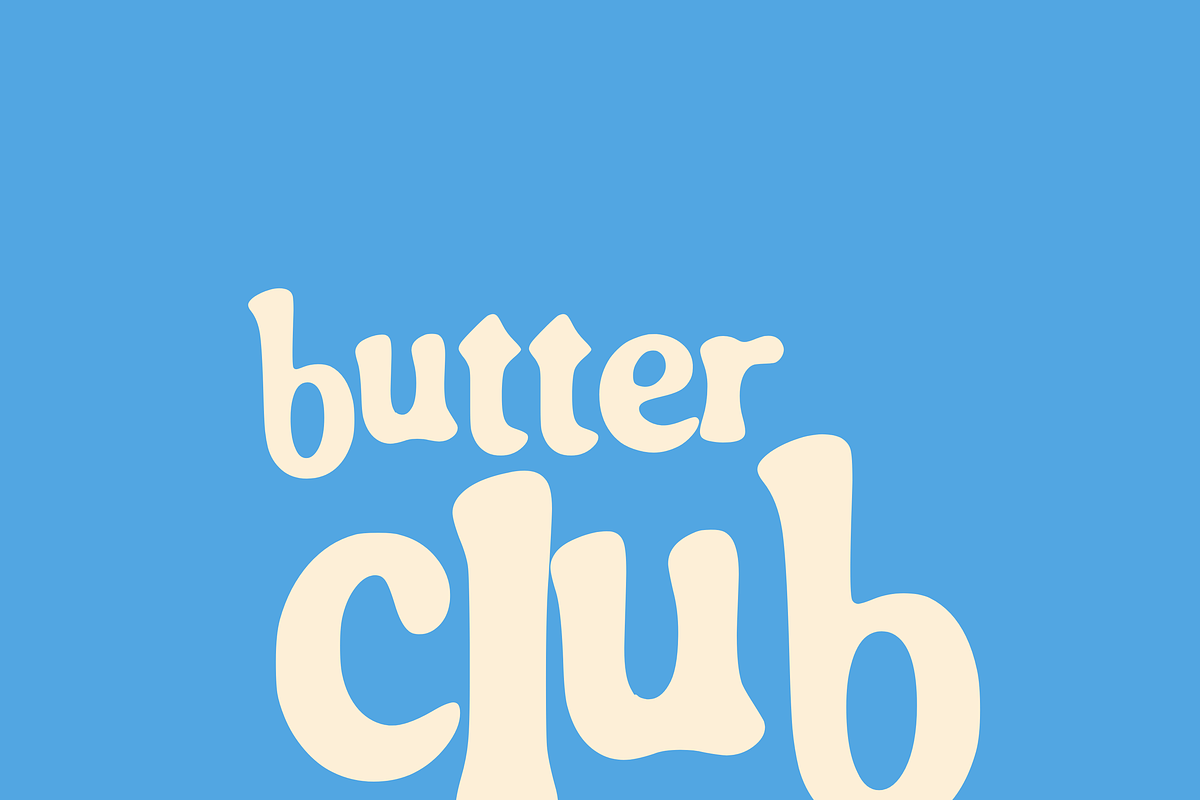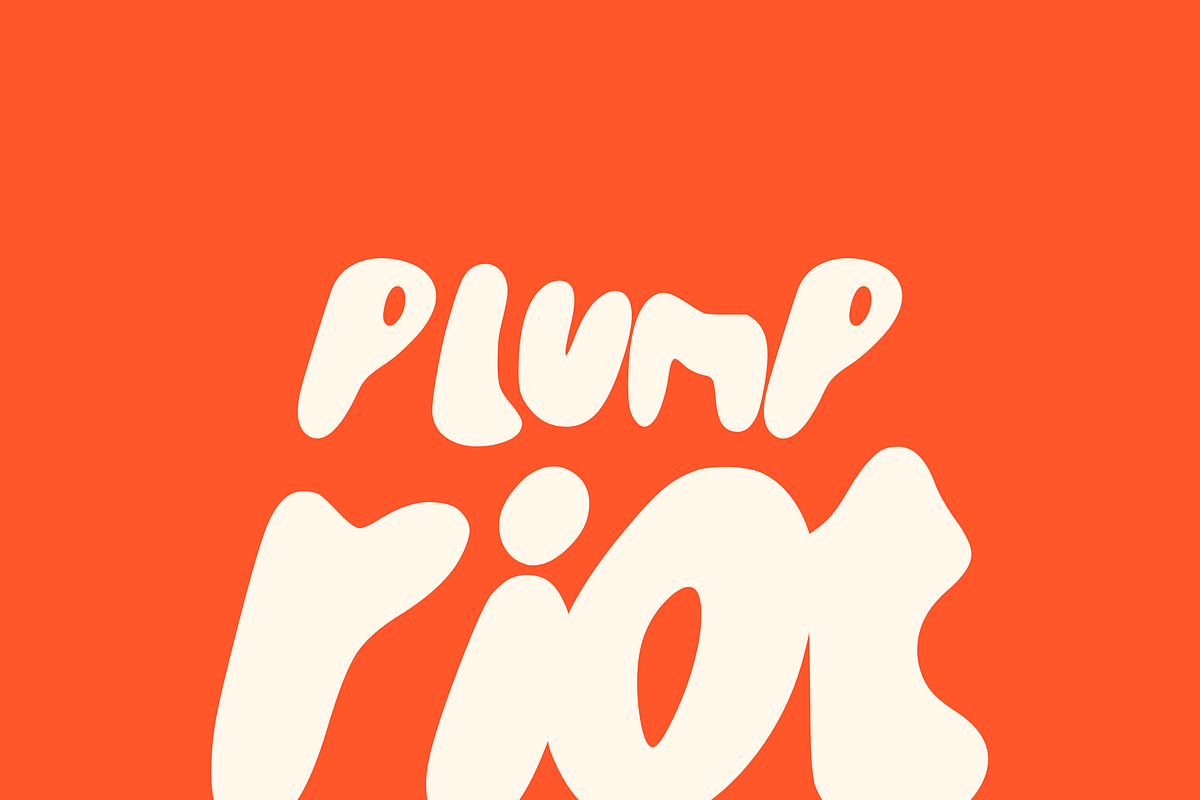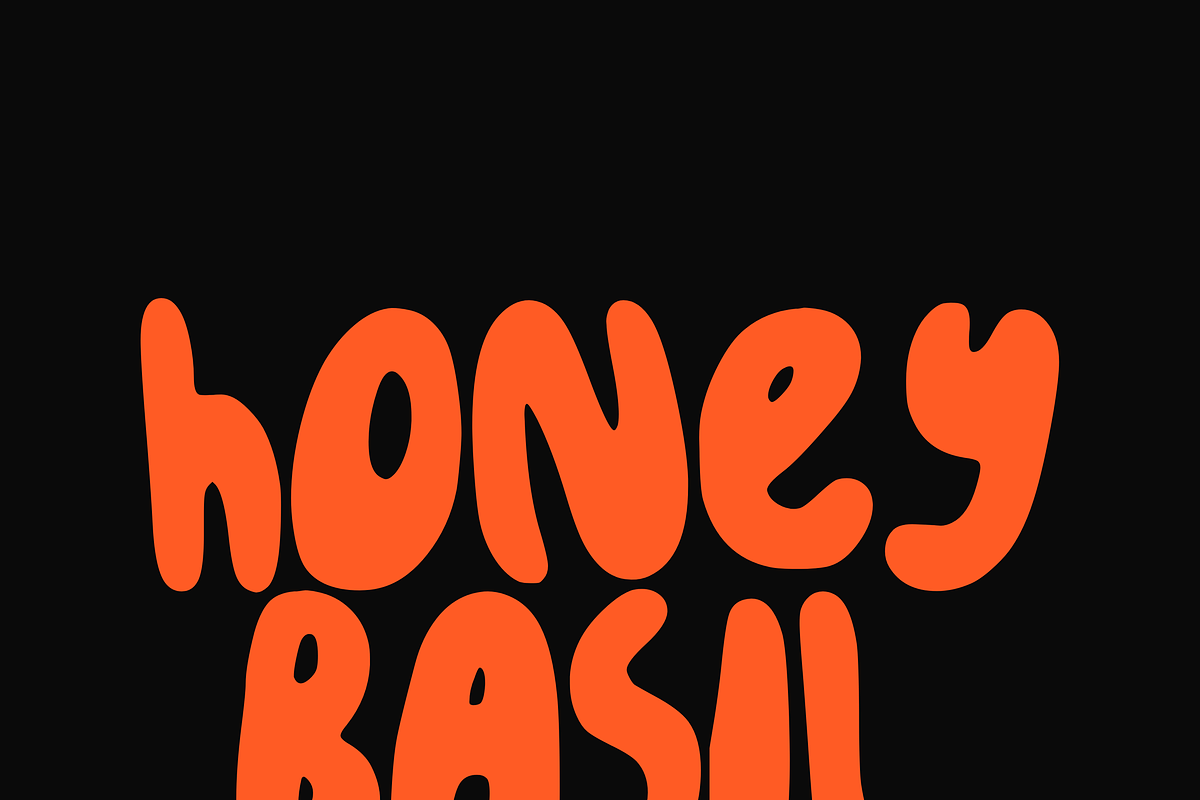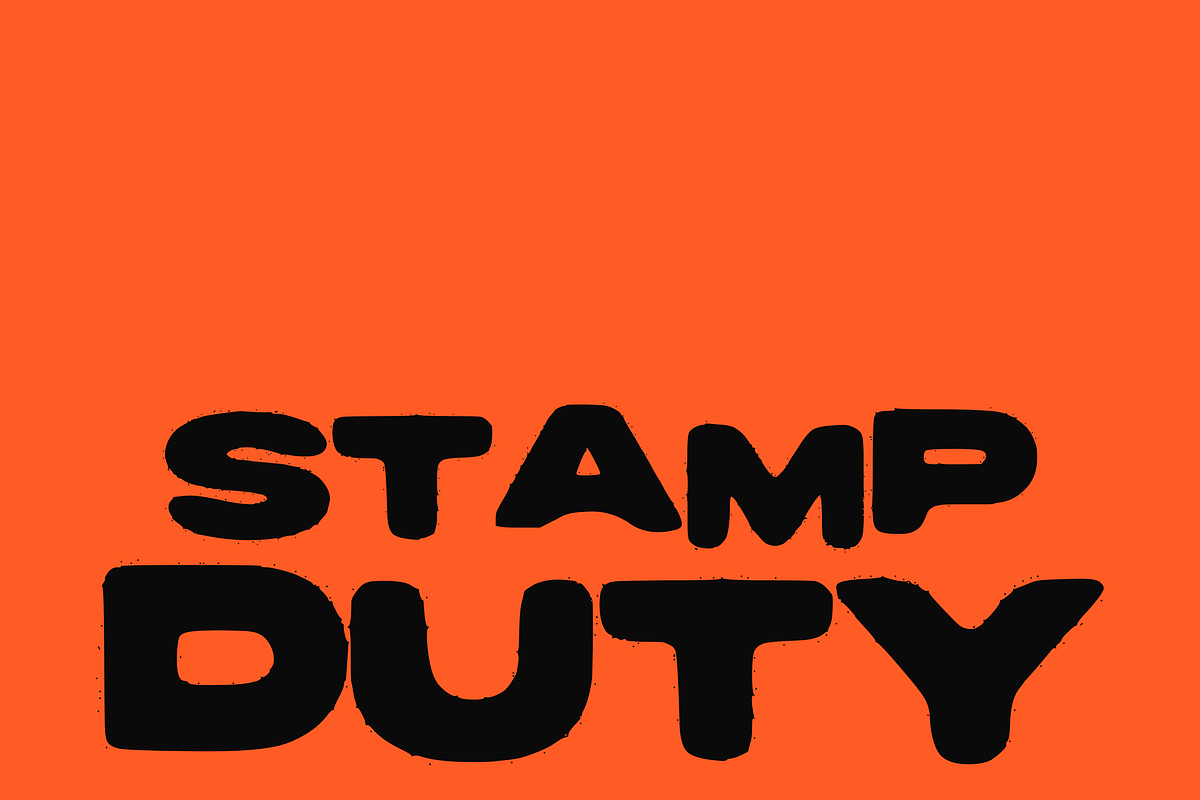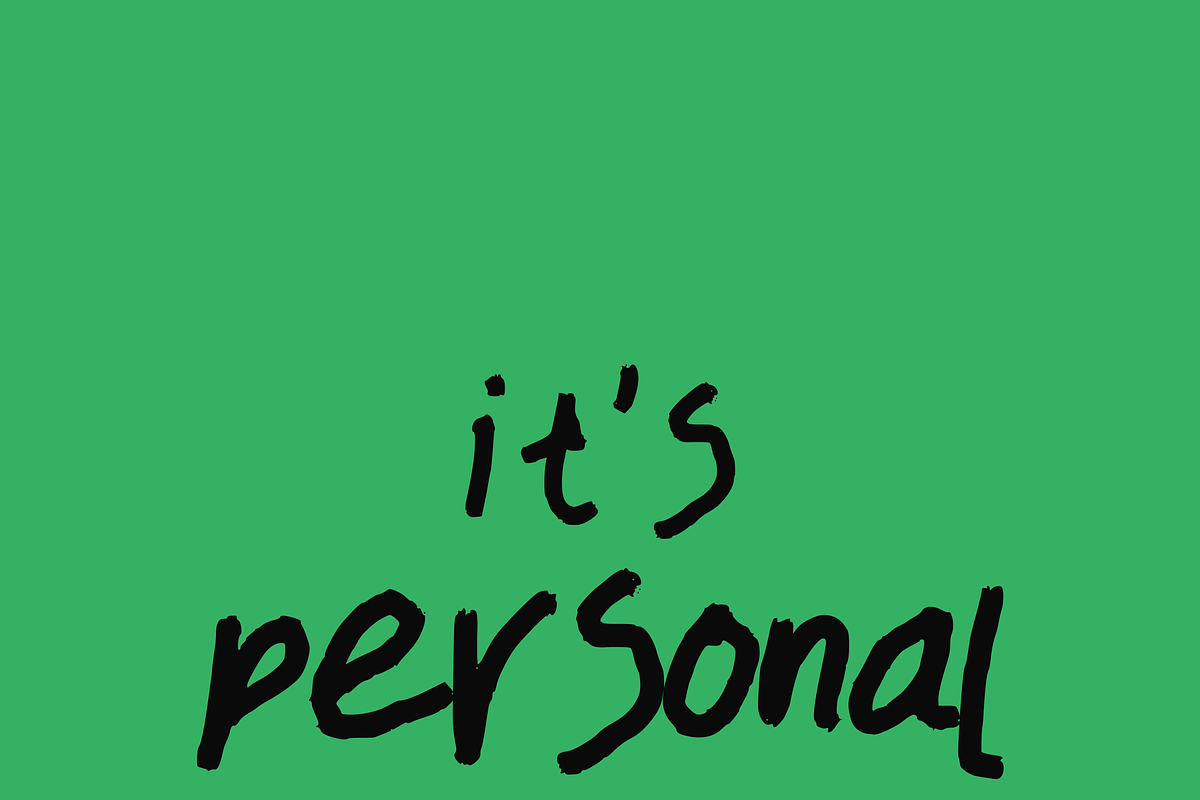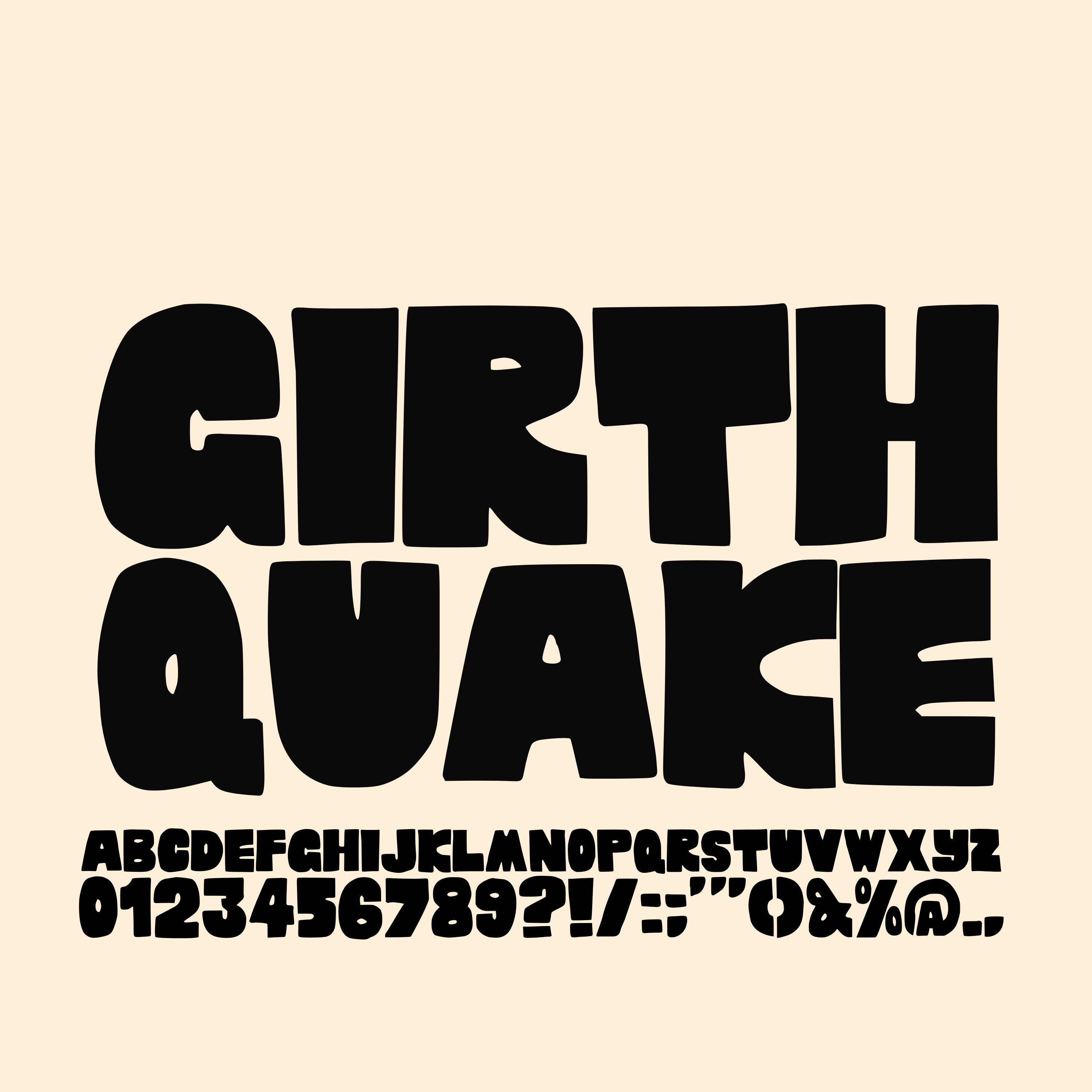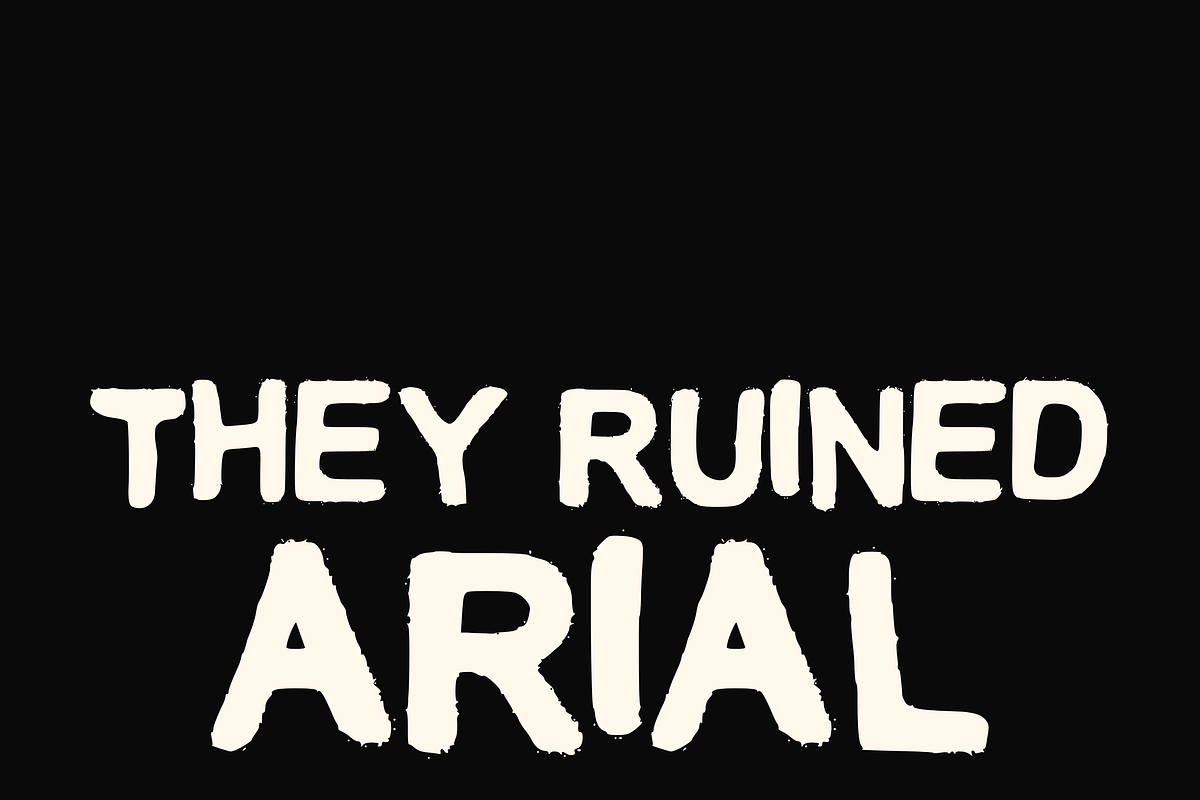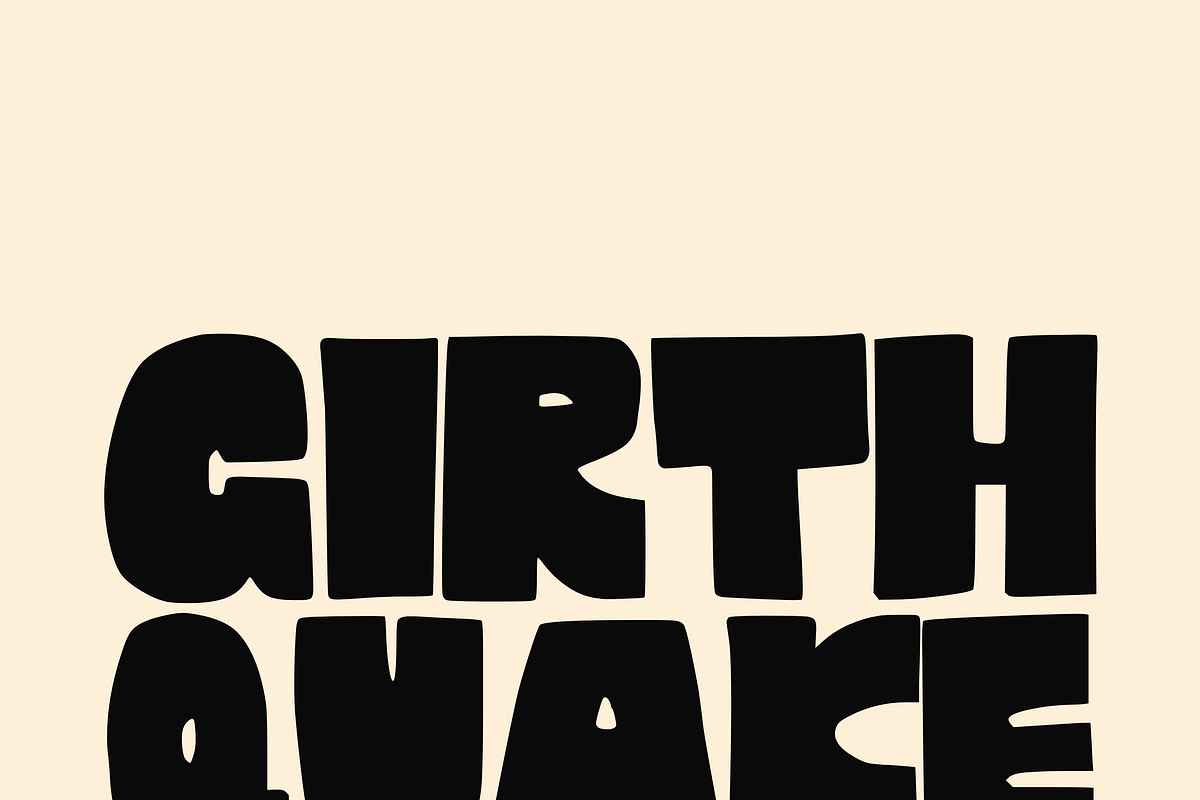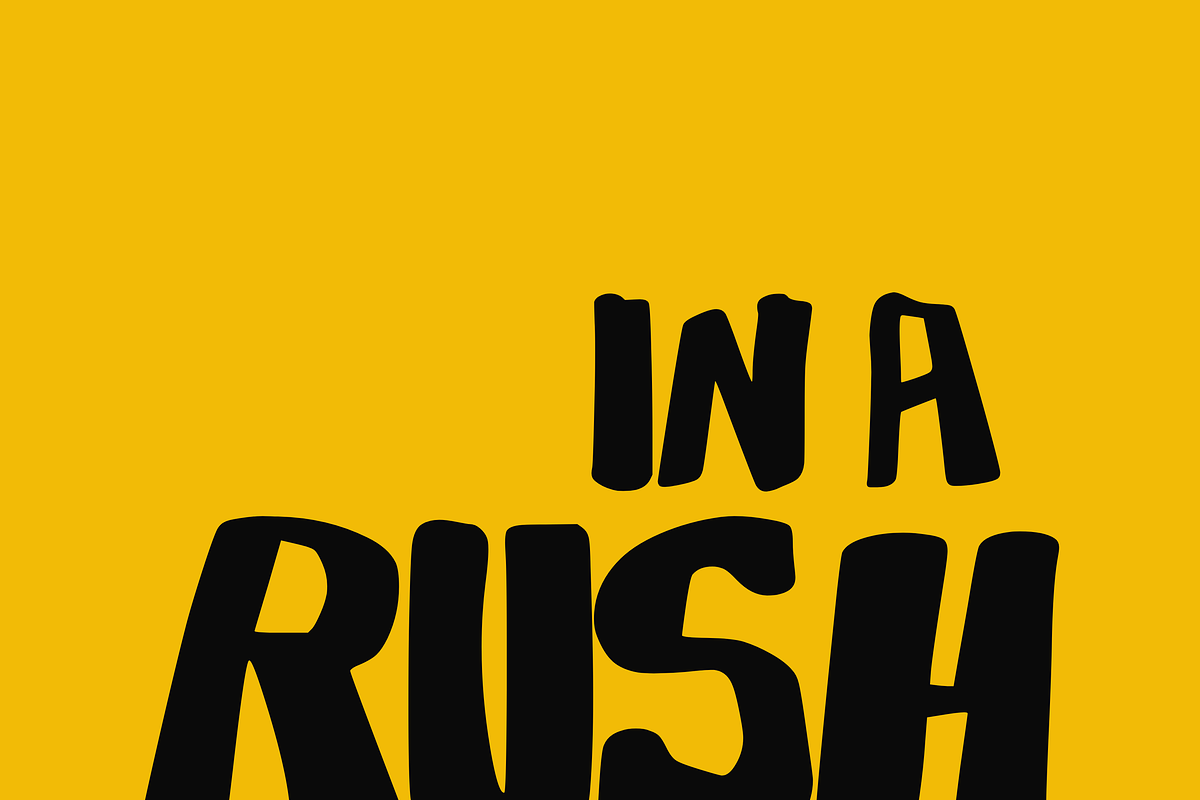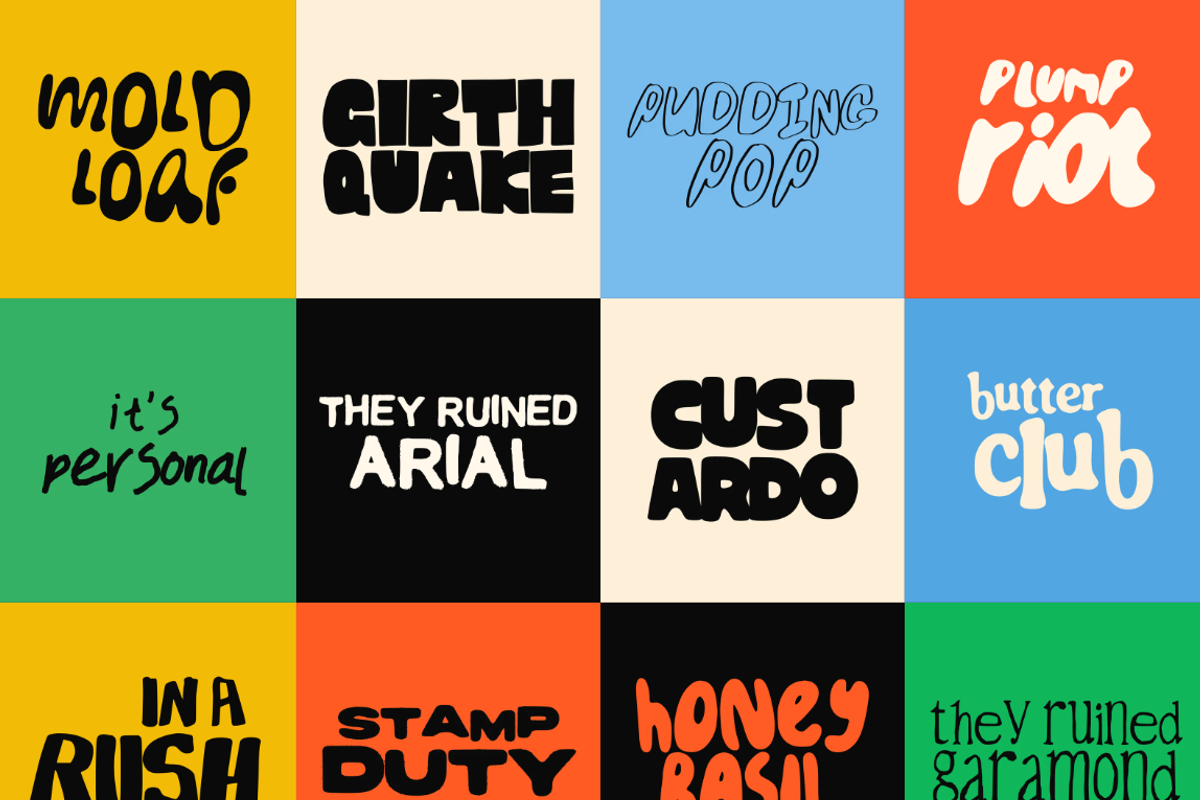
The Ultimate Font Bundle, 12 Fonts
The Ultimate Font Bundle is a collection of 12 bold, expressive, personality packed fonts created for modern creatives who want typography with real character. Designed with current typography trends in mind, this bundle combines playful retro inspiration, chunky display lettering, quirky editorial forms, hand drawn imperfections, and bold statement typography that works across both digital and print design.
Inside the collection you’ll find fun and retro inspired display fonts, bubble lettering, quirky serif styles, playful sans serif fonts, hand drawn typography, and imperfect organic forms designed to add personality and impact to your creative work.
Designed by Emma Rodriguez Studio.